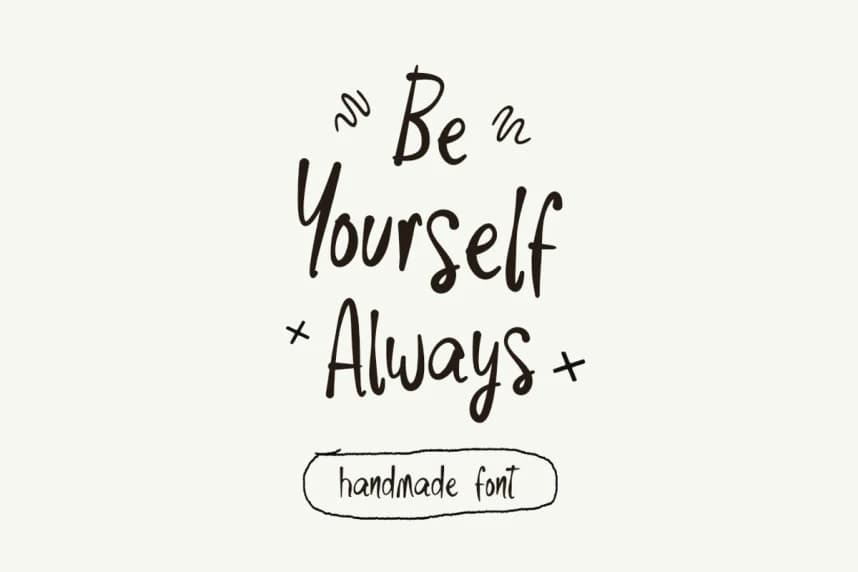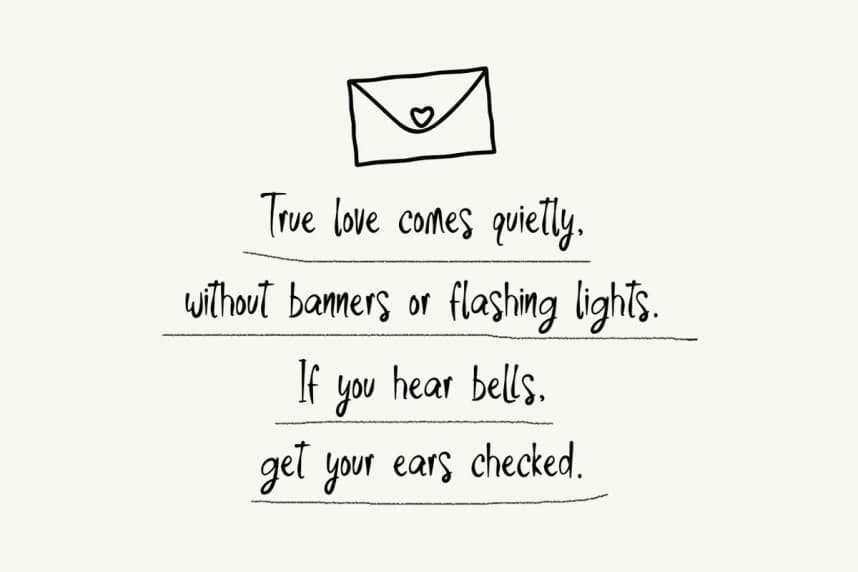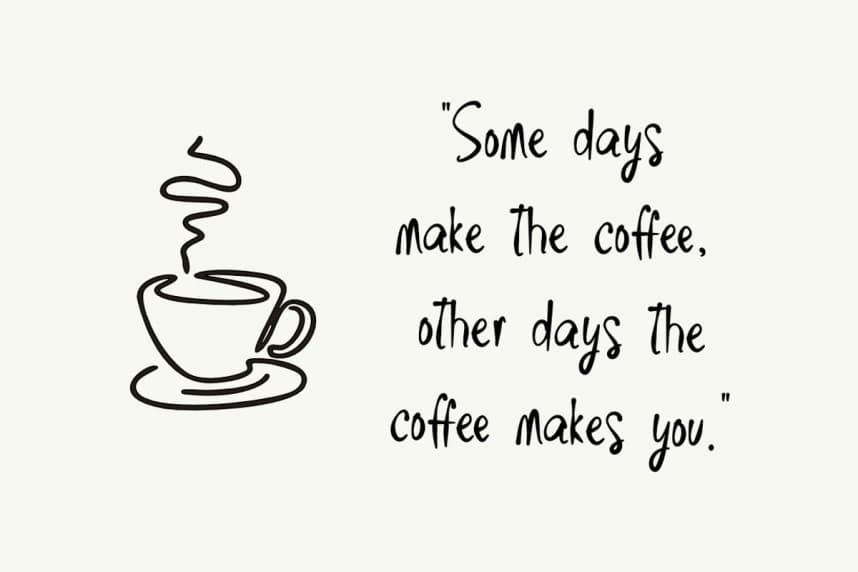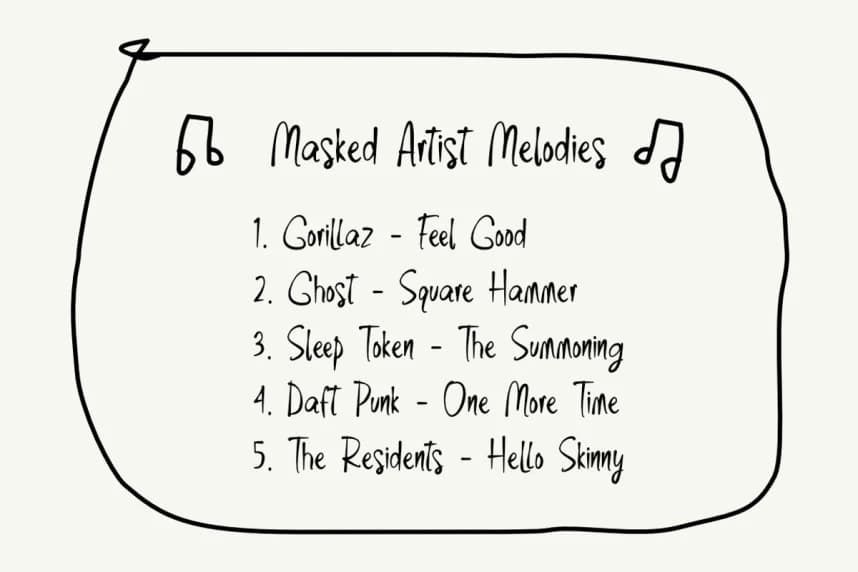
Be Yourself Always Font
Be Yourself Always Font, a charming handwritten font designed to look like real pen-on-paper writing. With its organic strokes and slightly imperfect lines, Be Yourself Always brings a personal, human touch to any digital project.